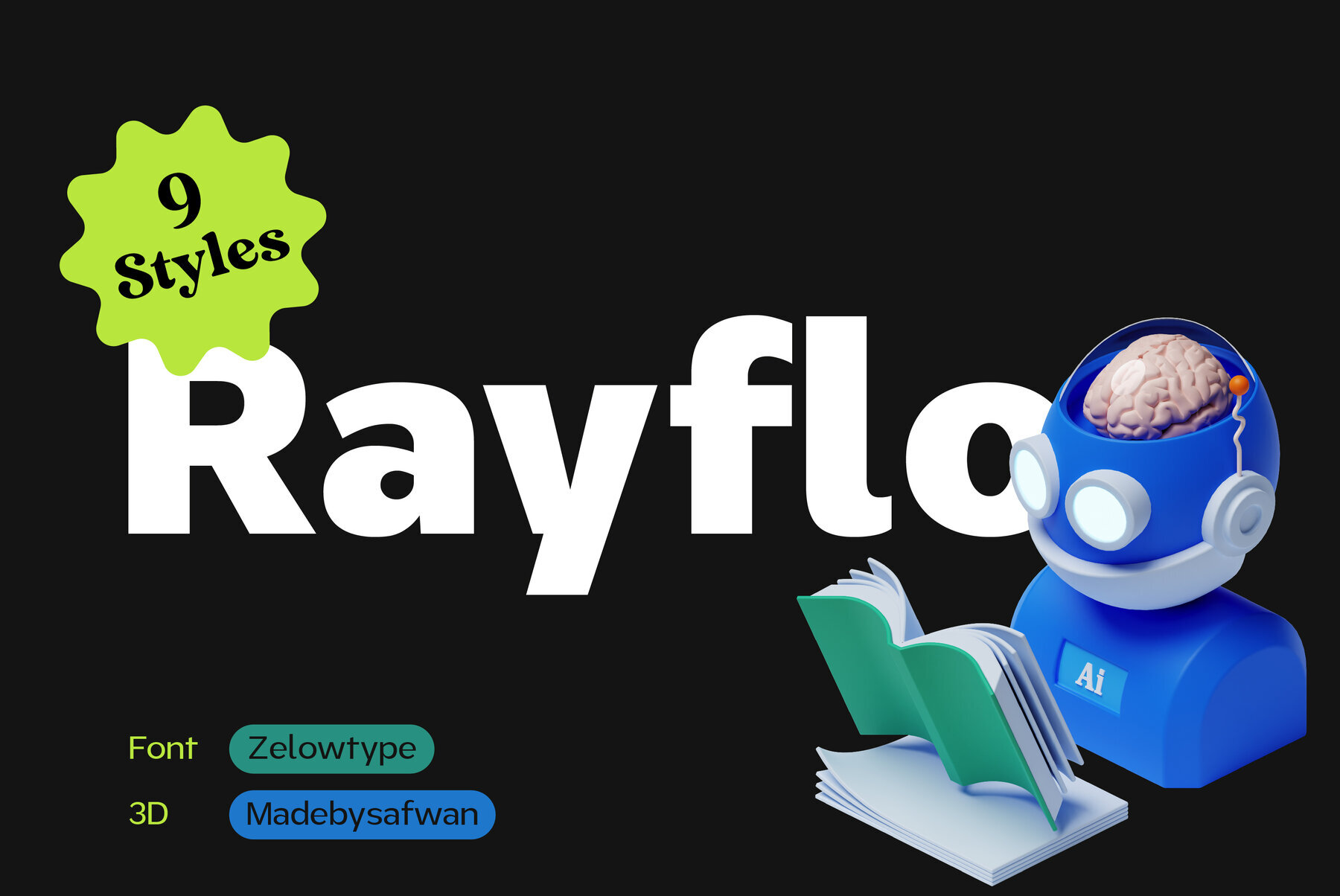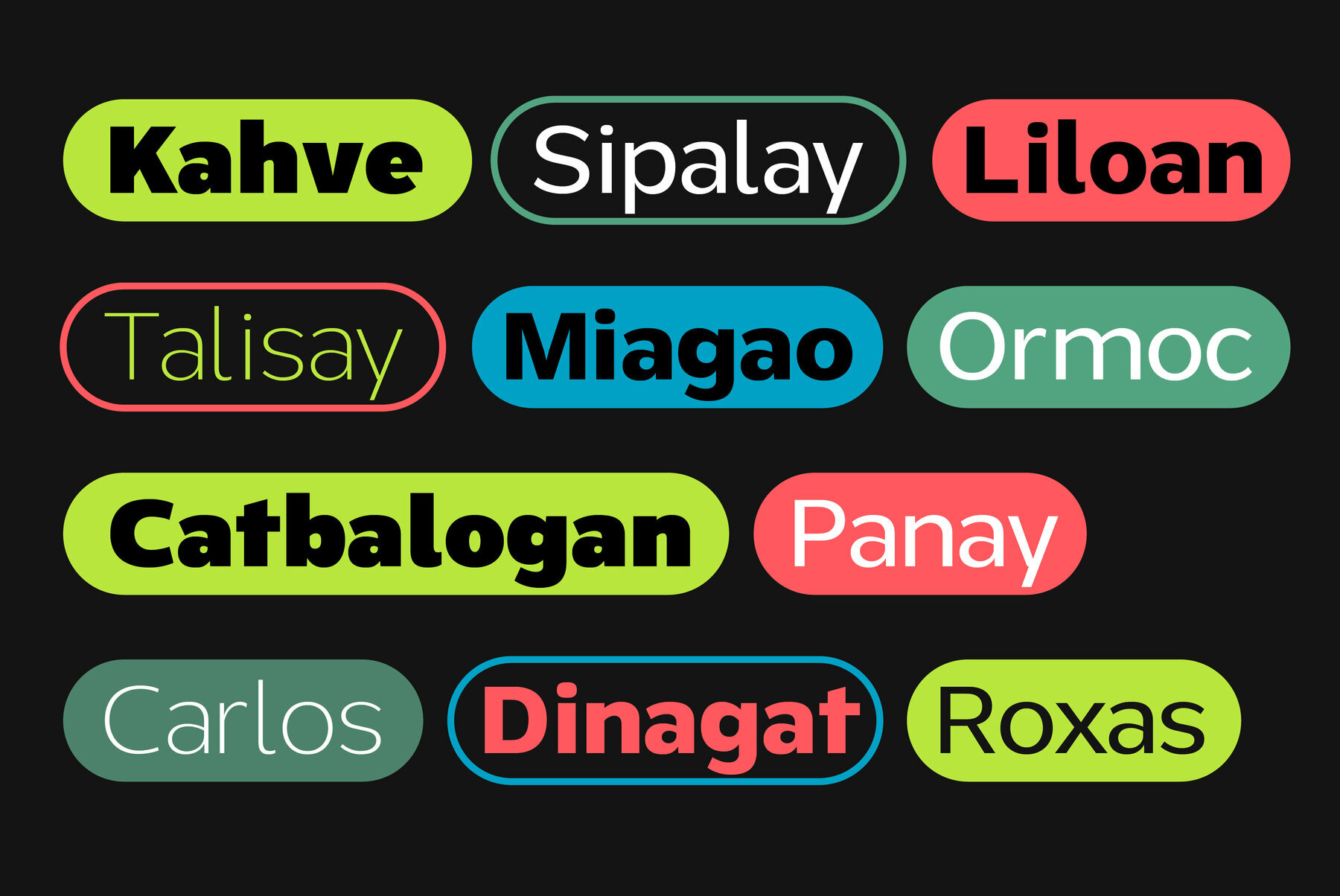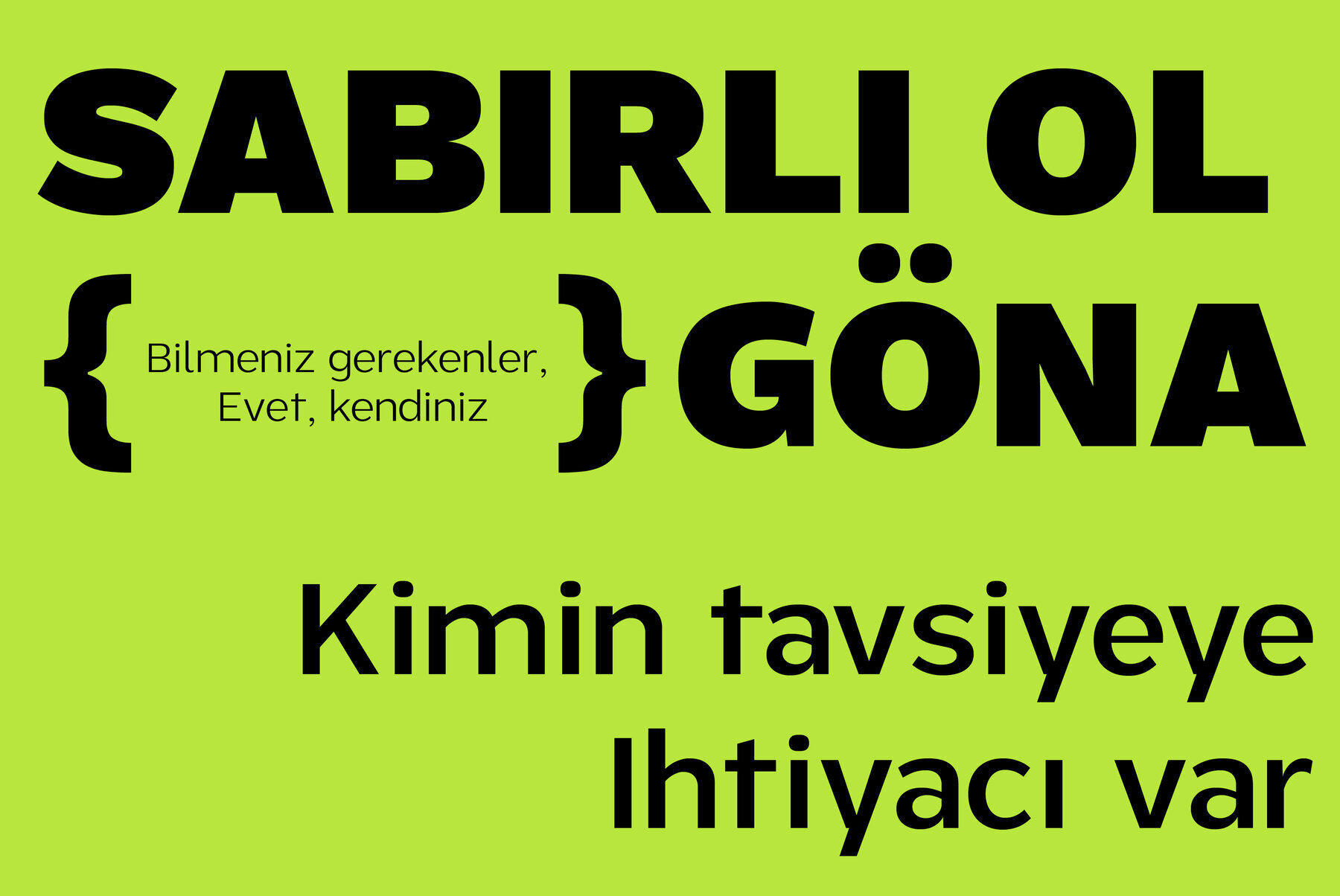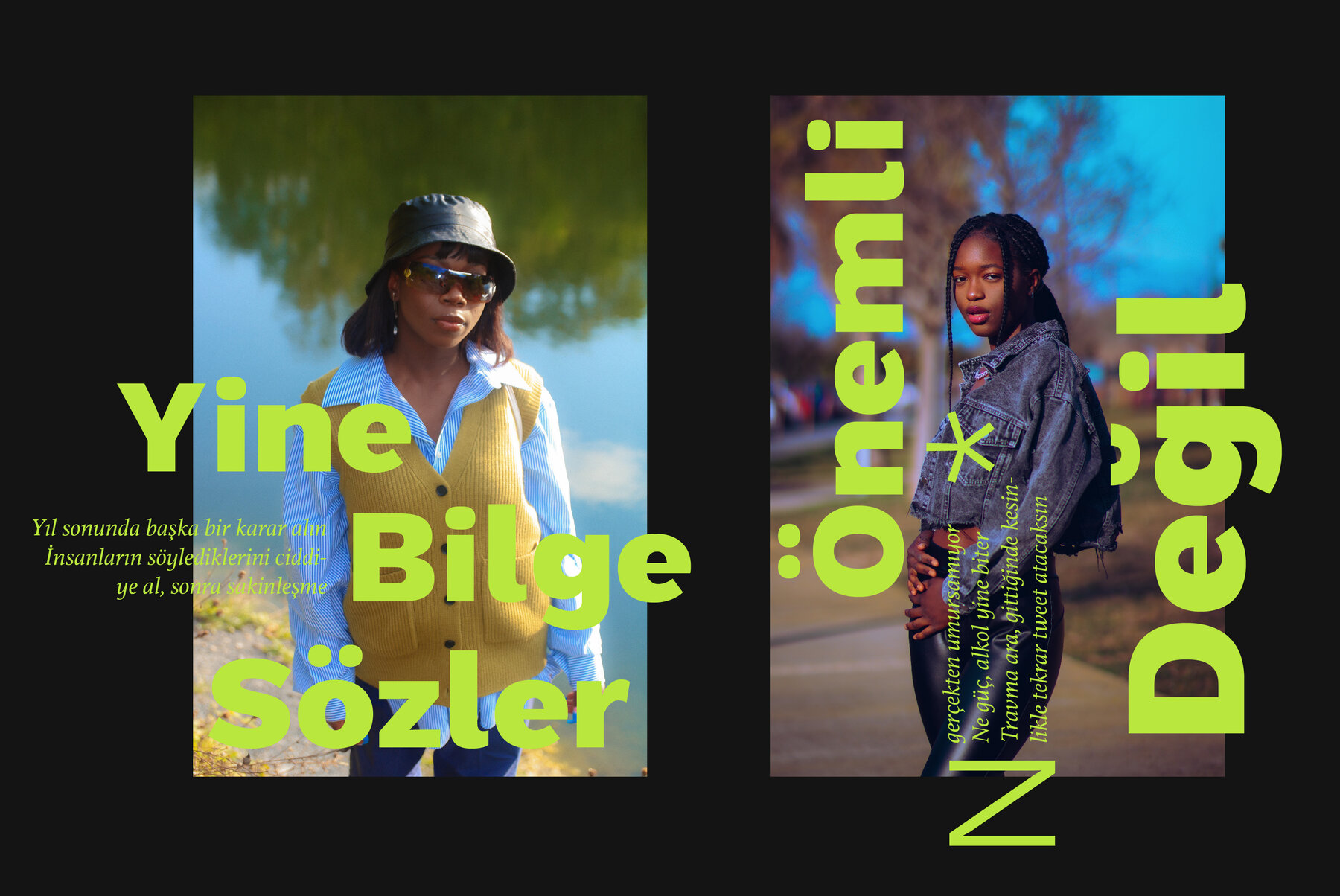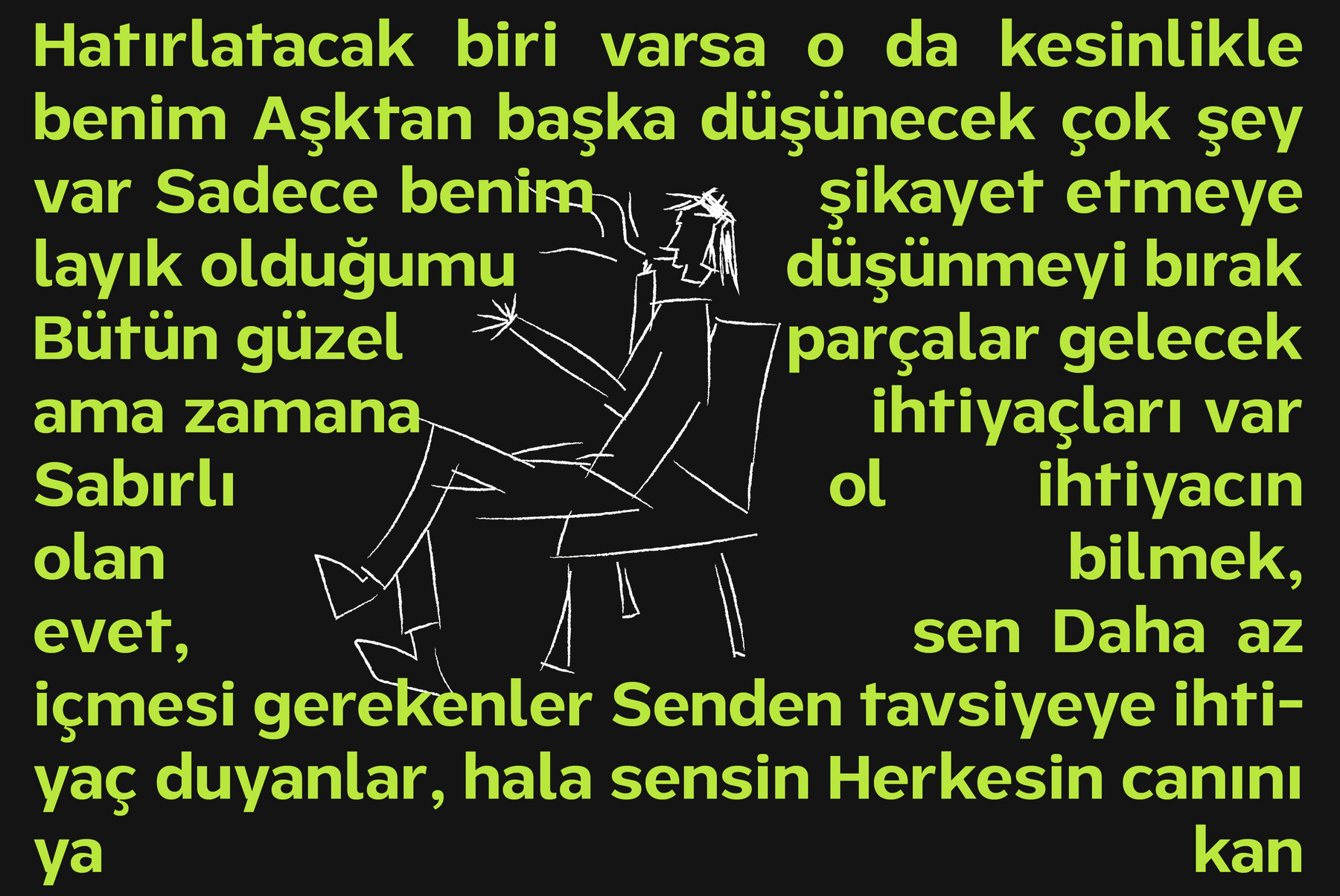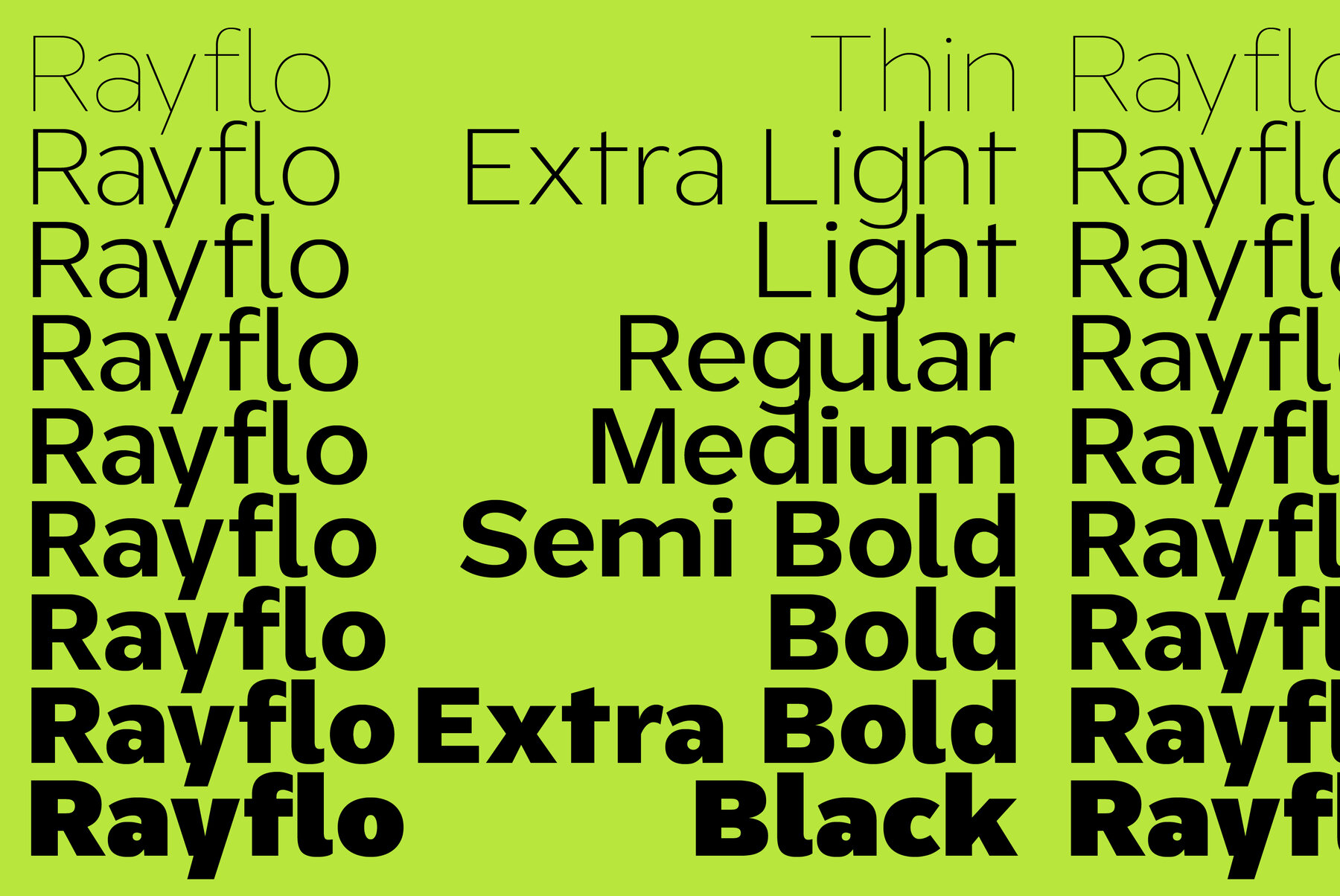
ZT Rayflo Font
ZT Rayflo is a font that exudes simplicity and style. With its gentle flow and clean lines, it's the perfect font for those who want to make a statement with their designs without overwhelming them with clutter. This sans serif font family comes in nine weights, from light to black, giving you the flexibility to use it for a variety of projects.